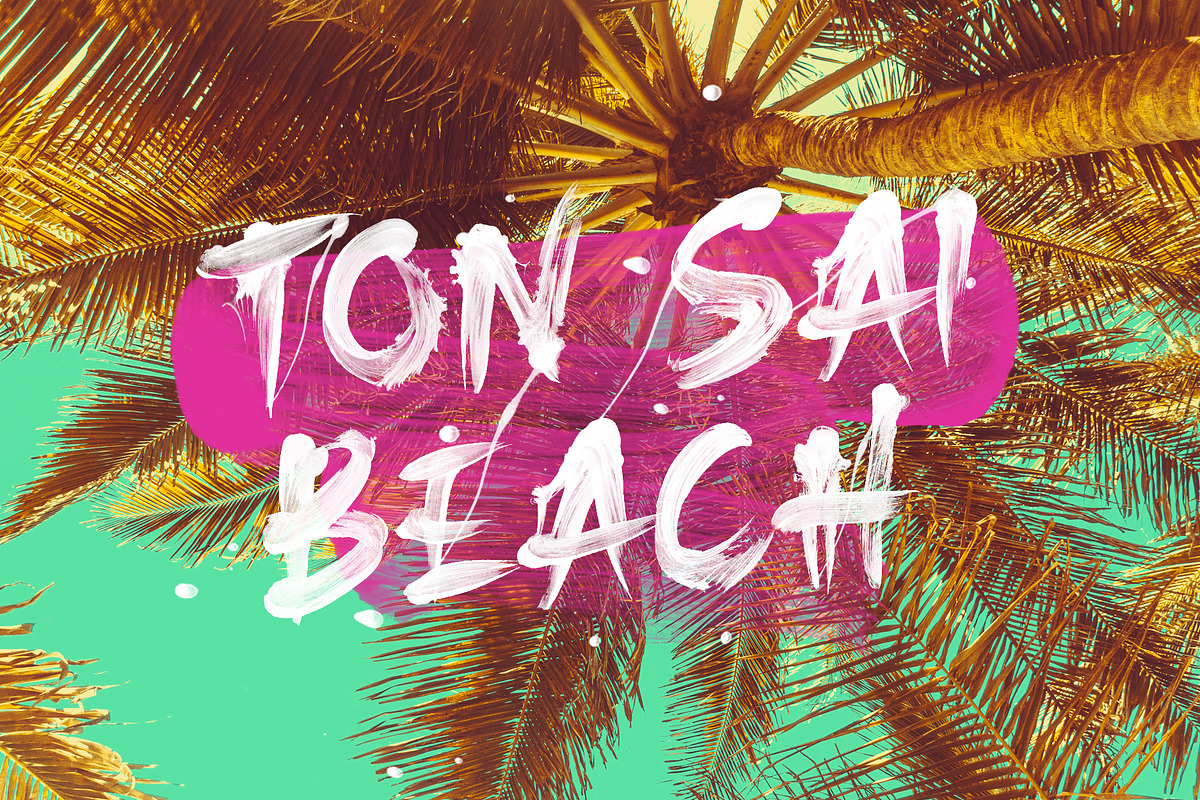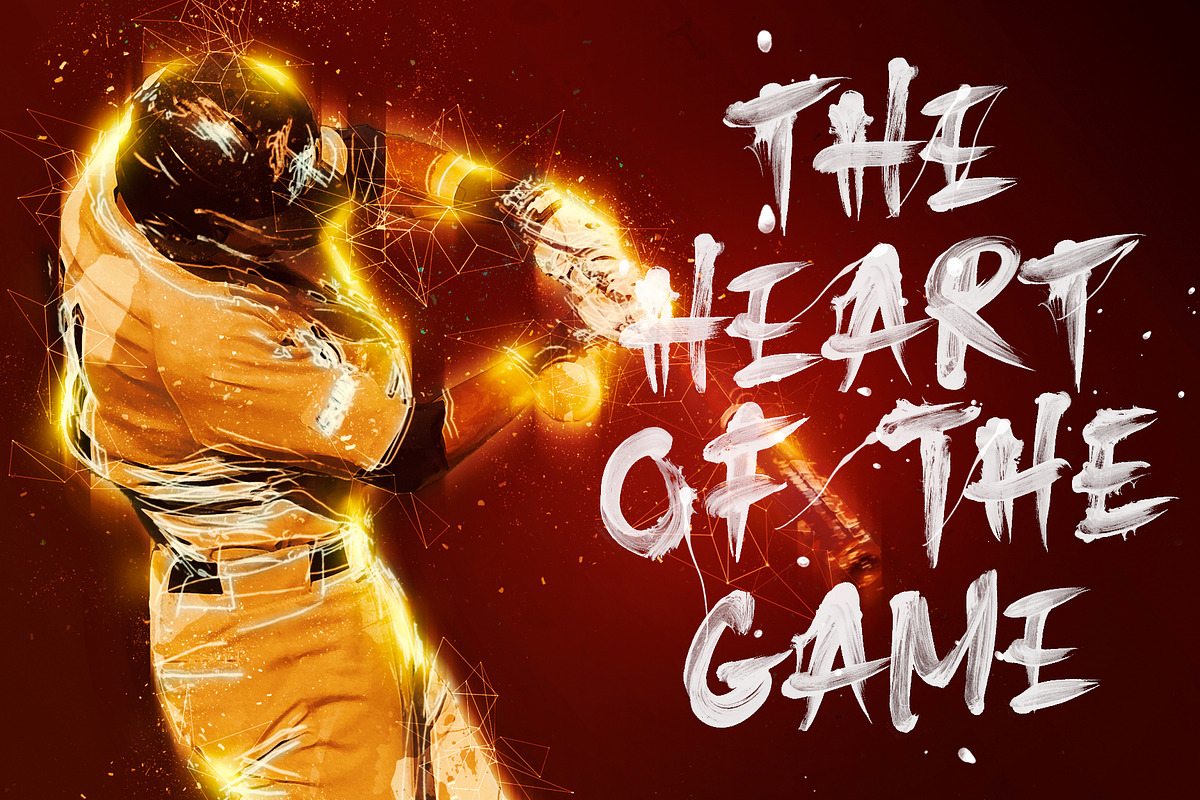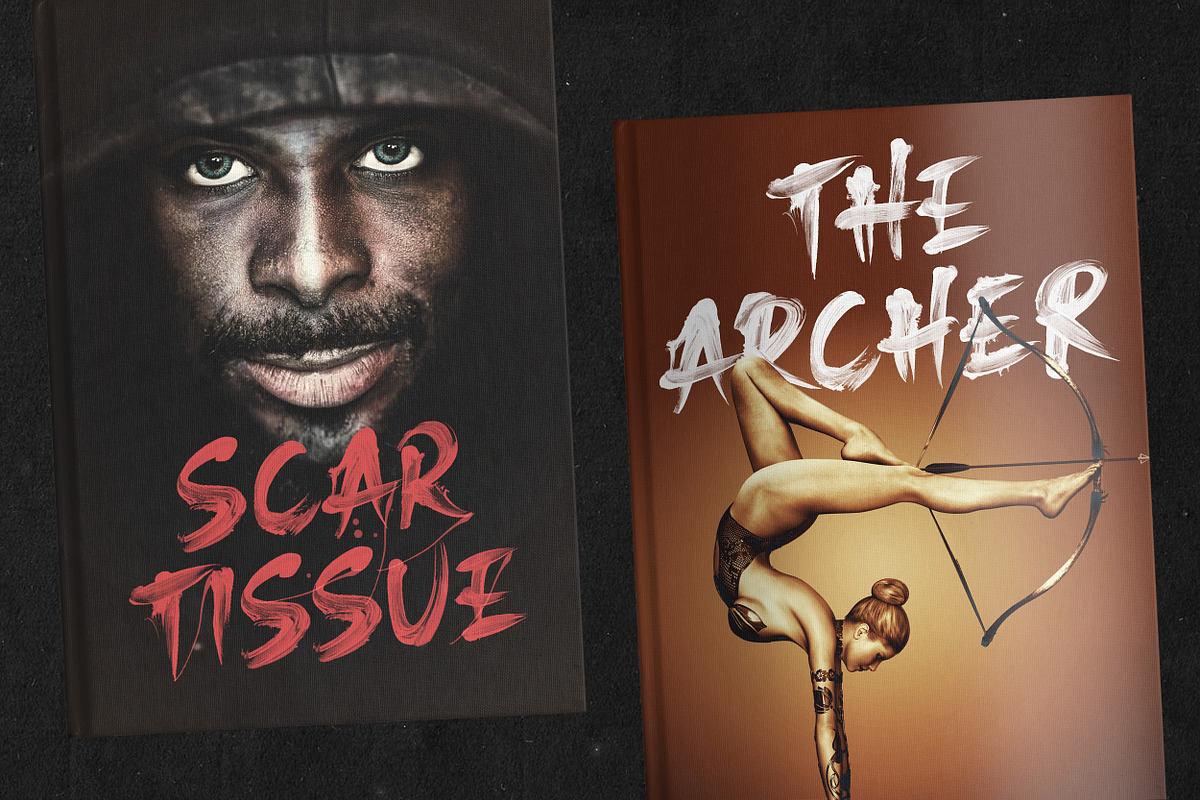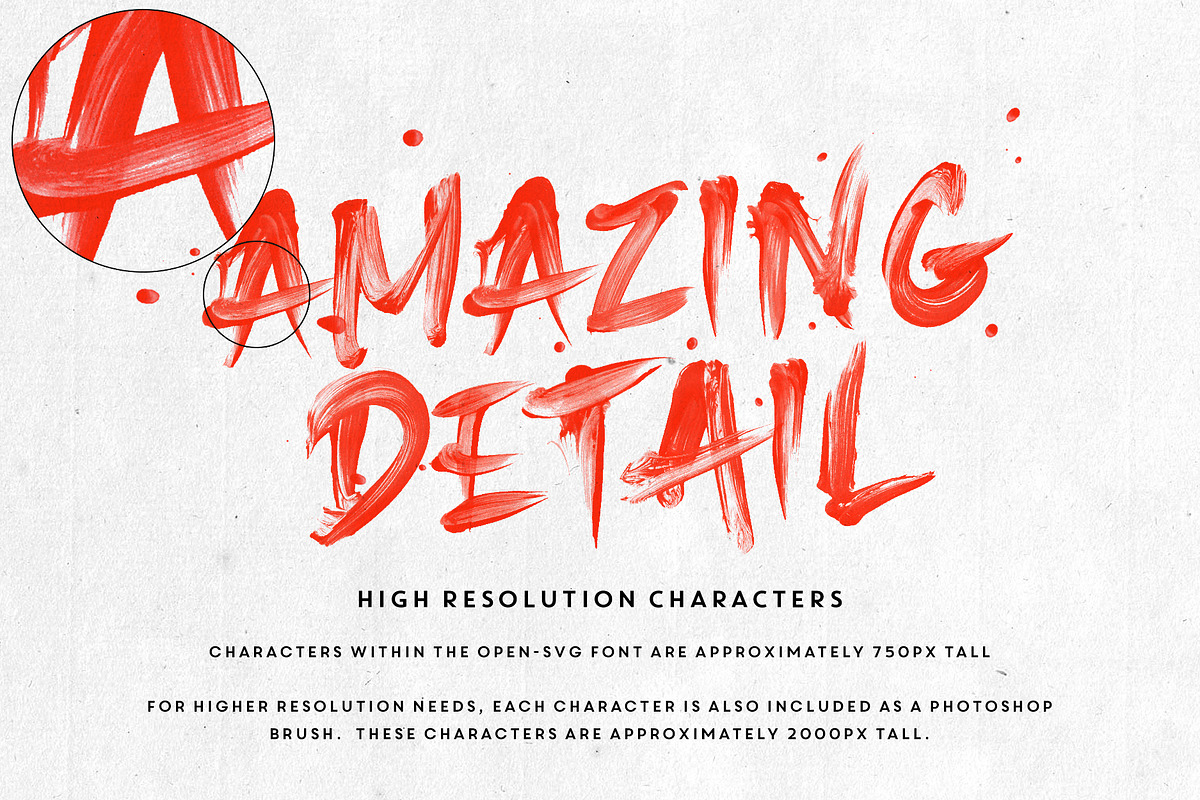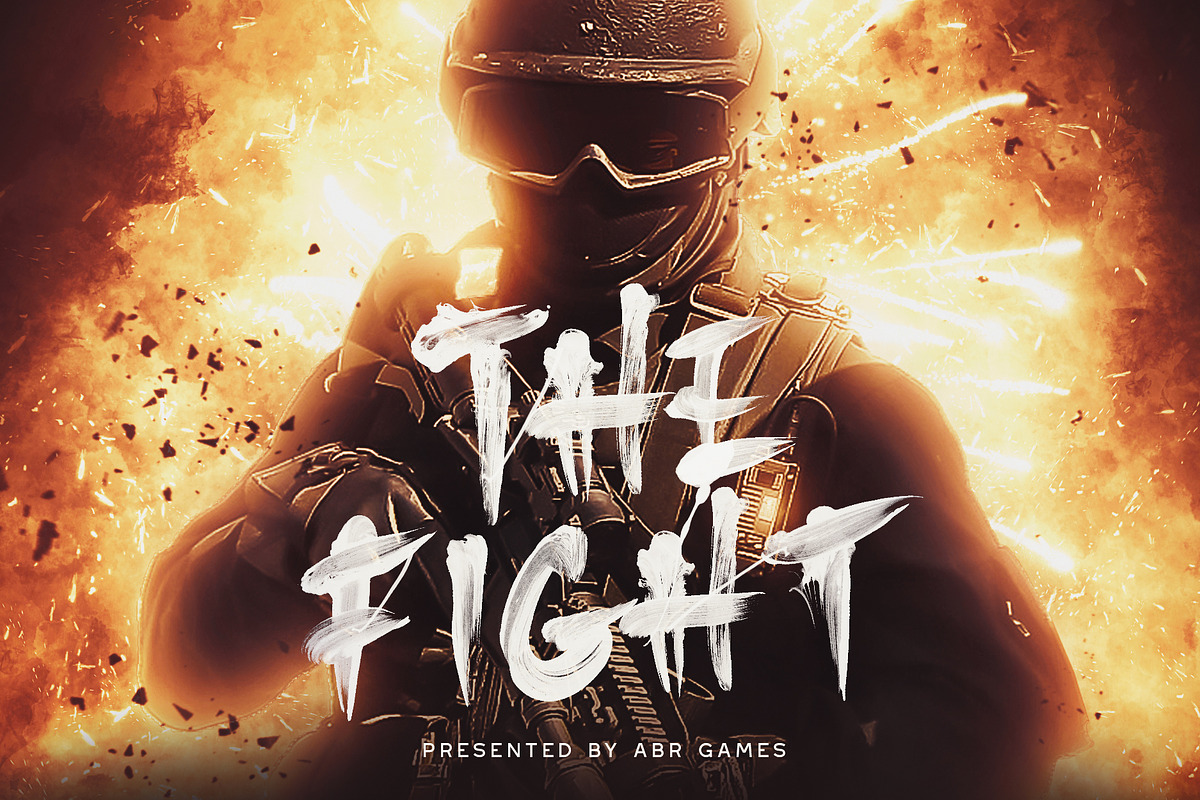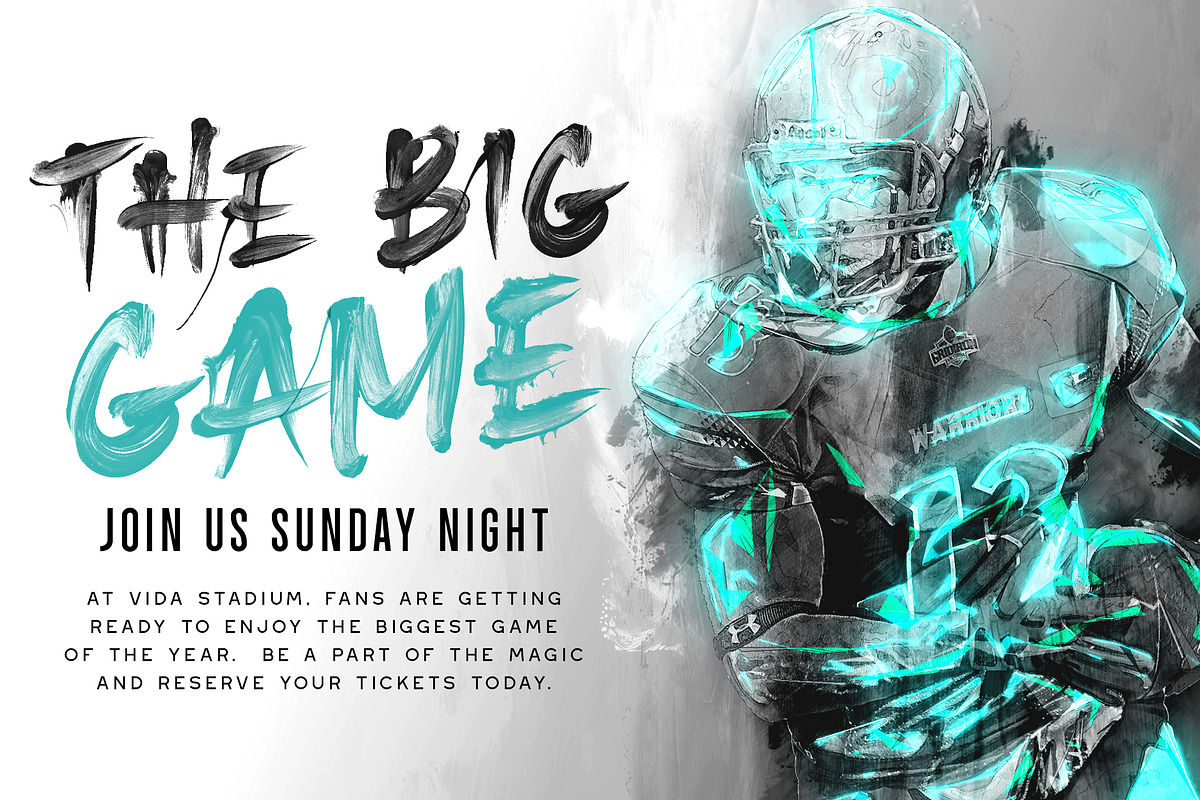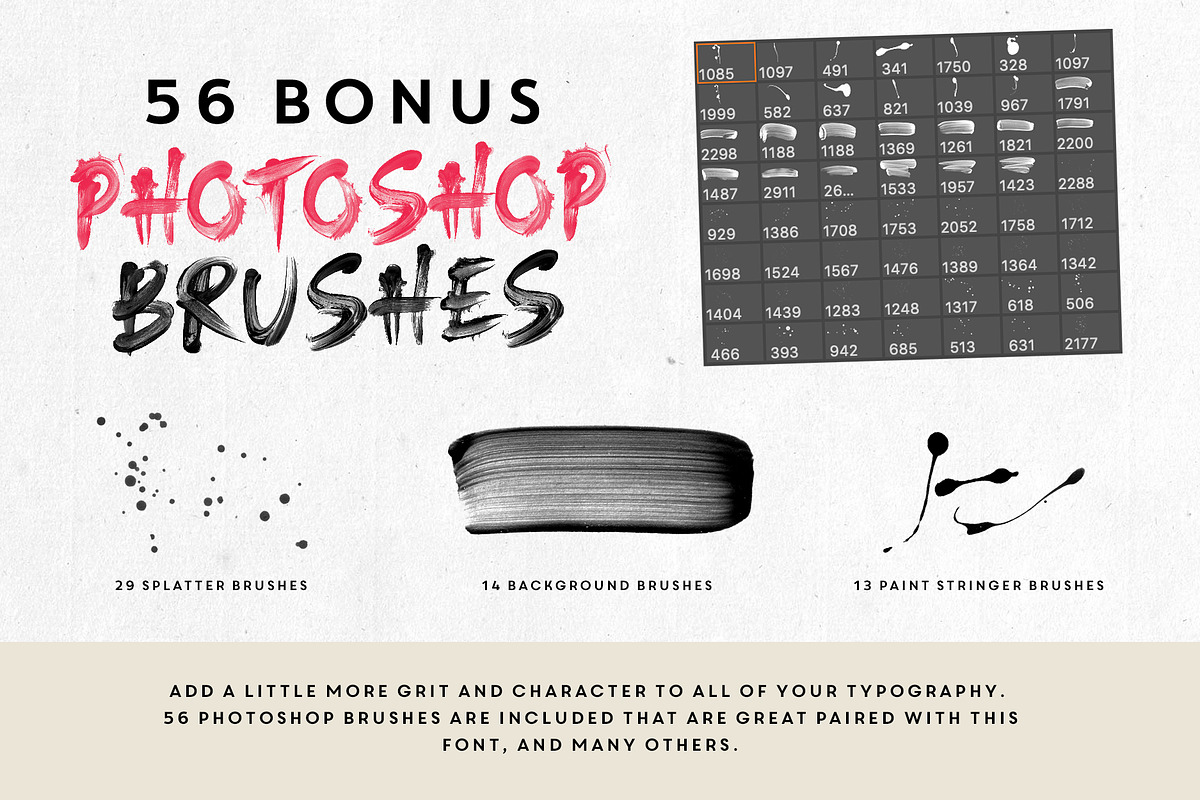
Total Rage - Brush SVG Font
Total Rage is a hyper realistic font full of hand painted letters that will take your design projects to a whole new level. This typeface is full of chaos and anger, and is great for magazines, billboards and website graphics. Total Rage uses the Opentype SVG format, making way for more authentic looking fonts and is sure to grab the attention of customers and designers alike.
The SVG version of the font does not contain accented characters, but Photoshop brushes for the accents are included so you can add them in manually. This allows us to offer the font in a higher resolution for crisper results. The vector/regular version of the font already has accented characters built in. This allows support for:
- Swashes/Splatter Brushes - We’ve also included a bunch of underlines and splatters to help spice up your designs.